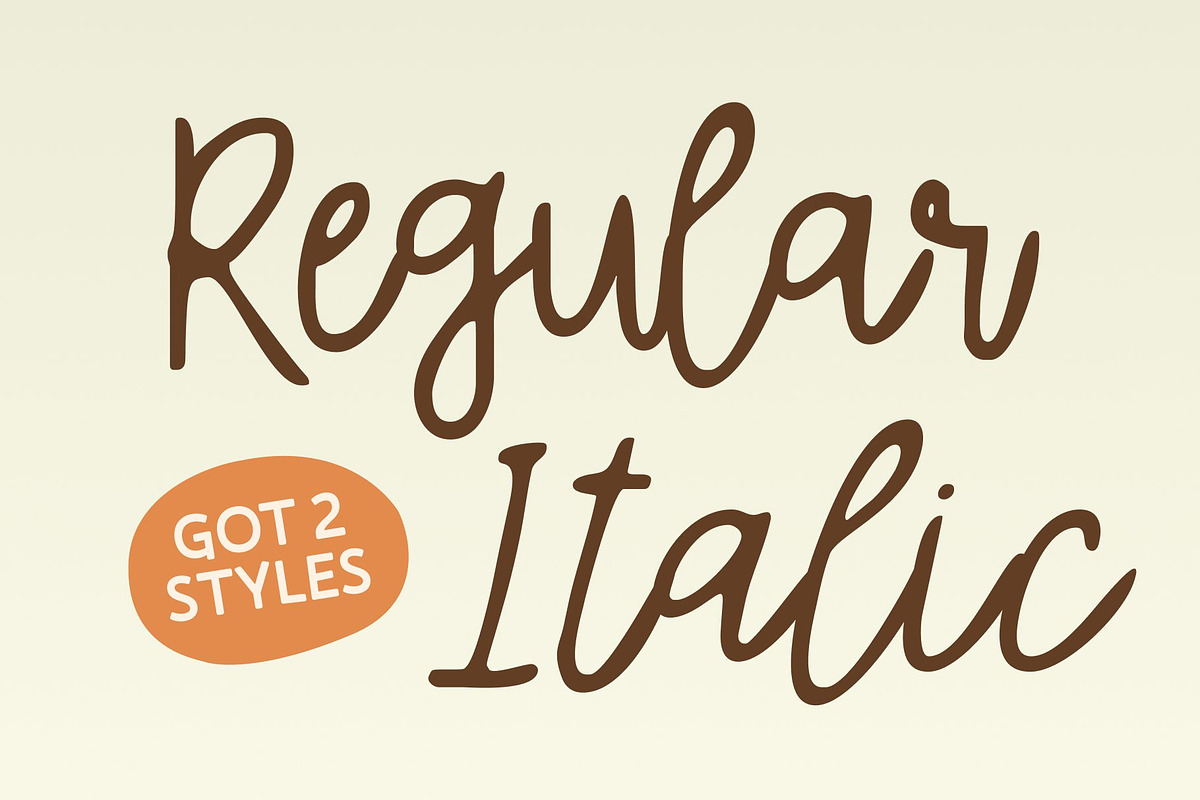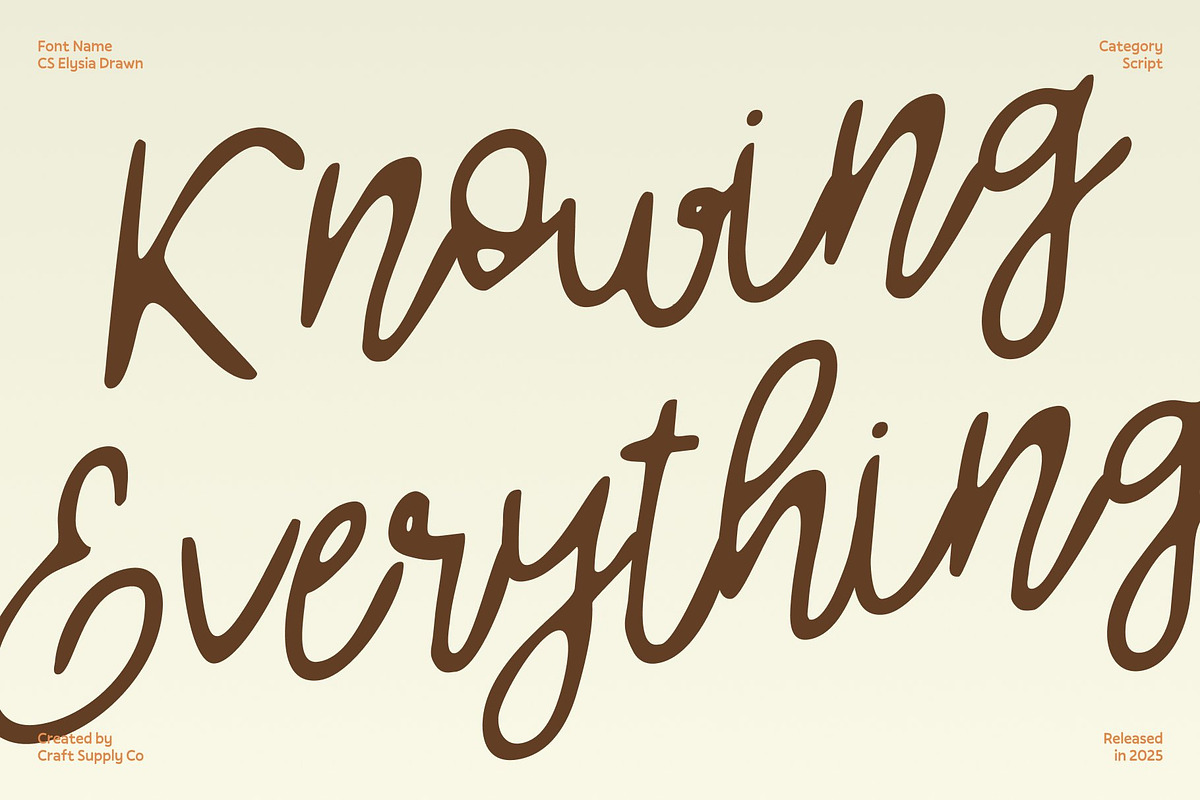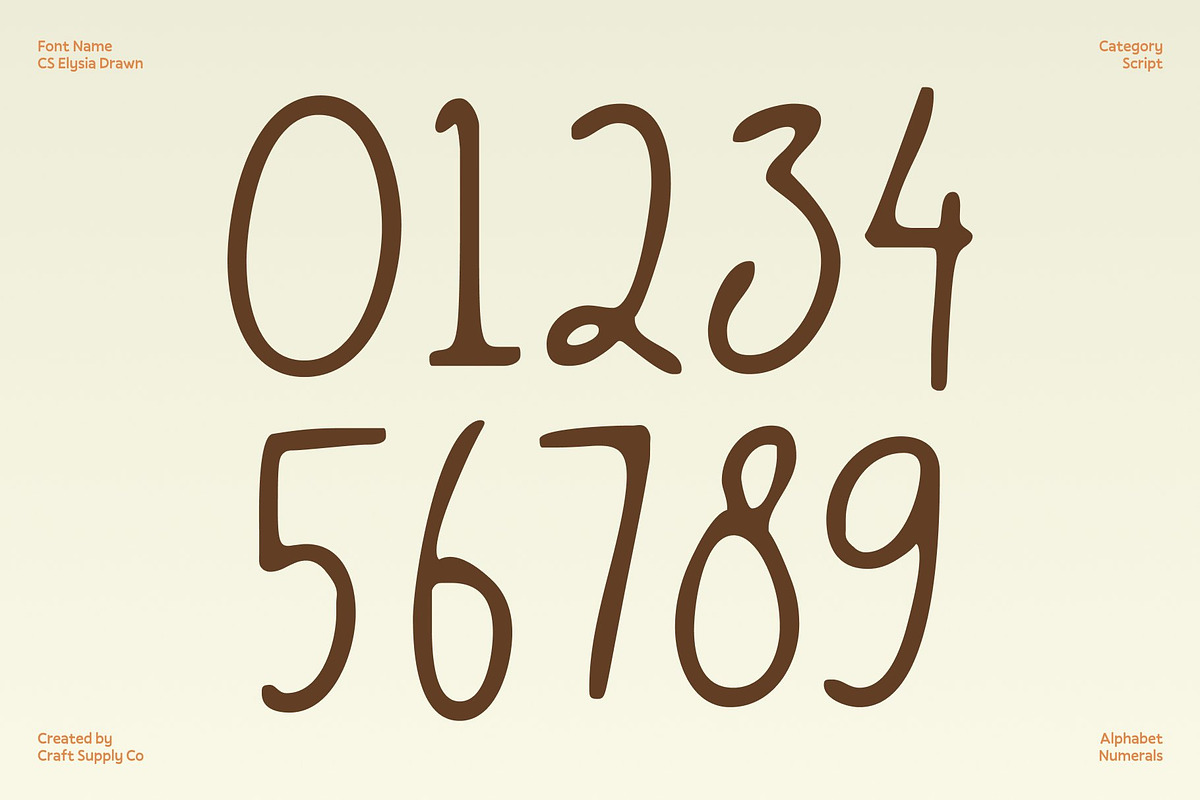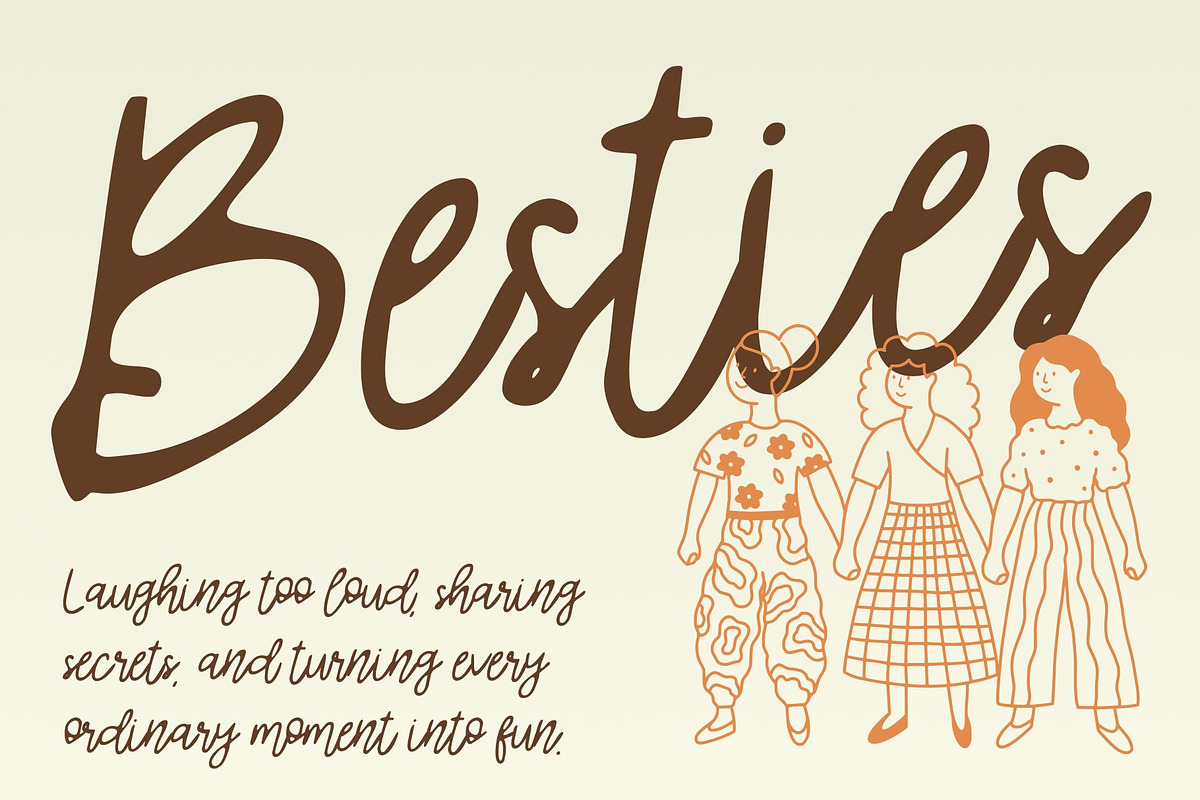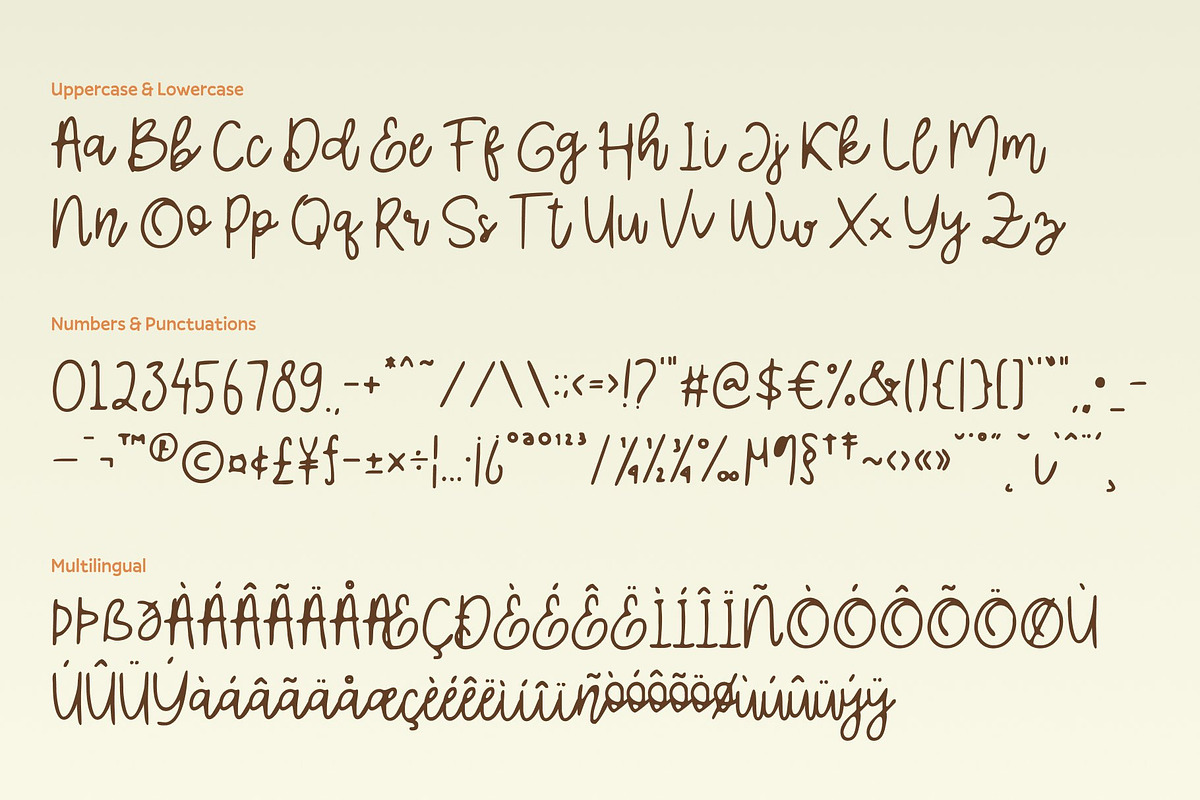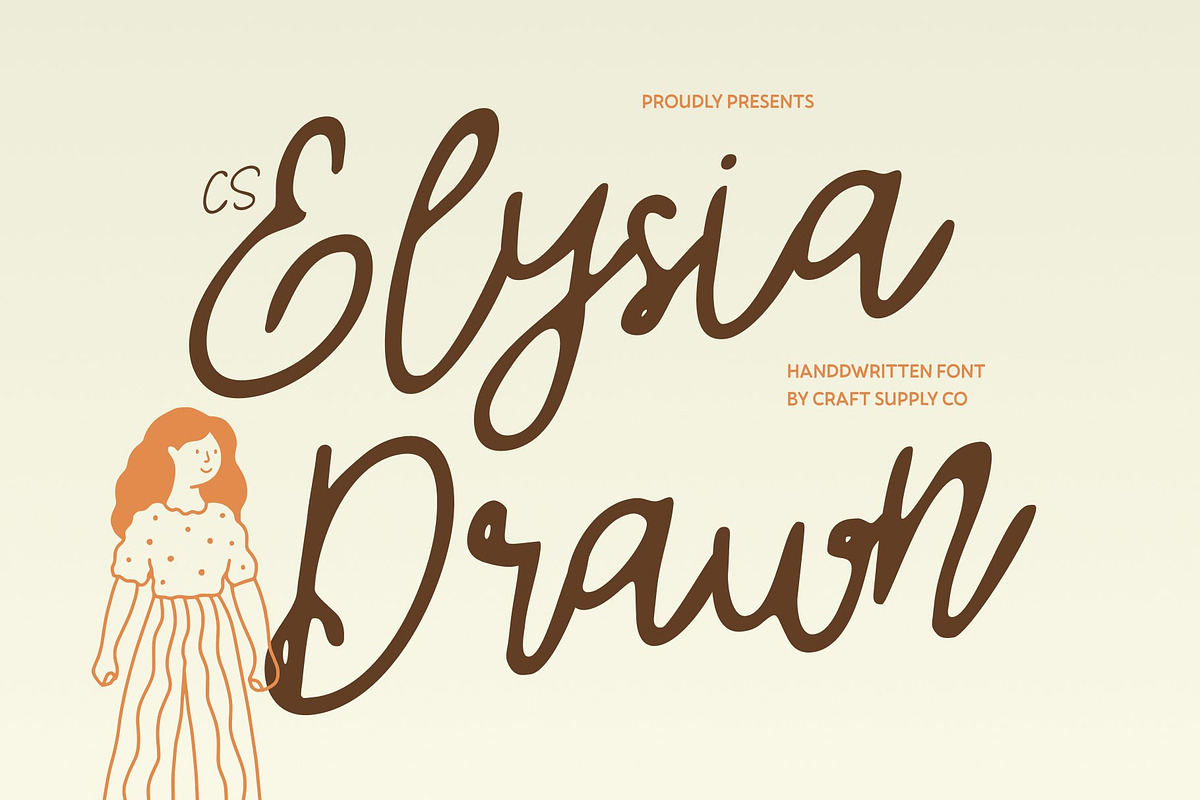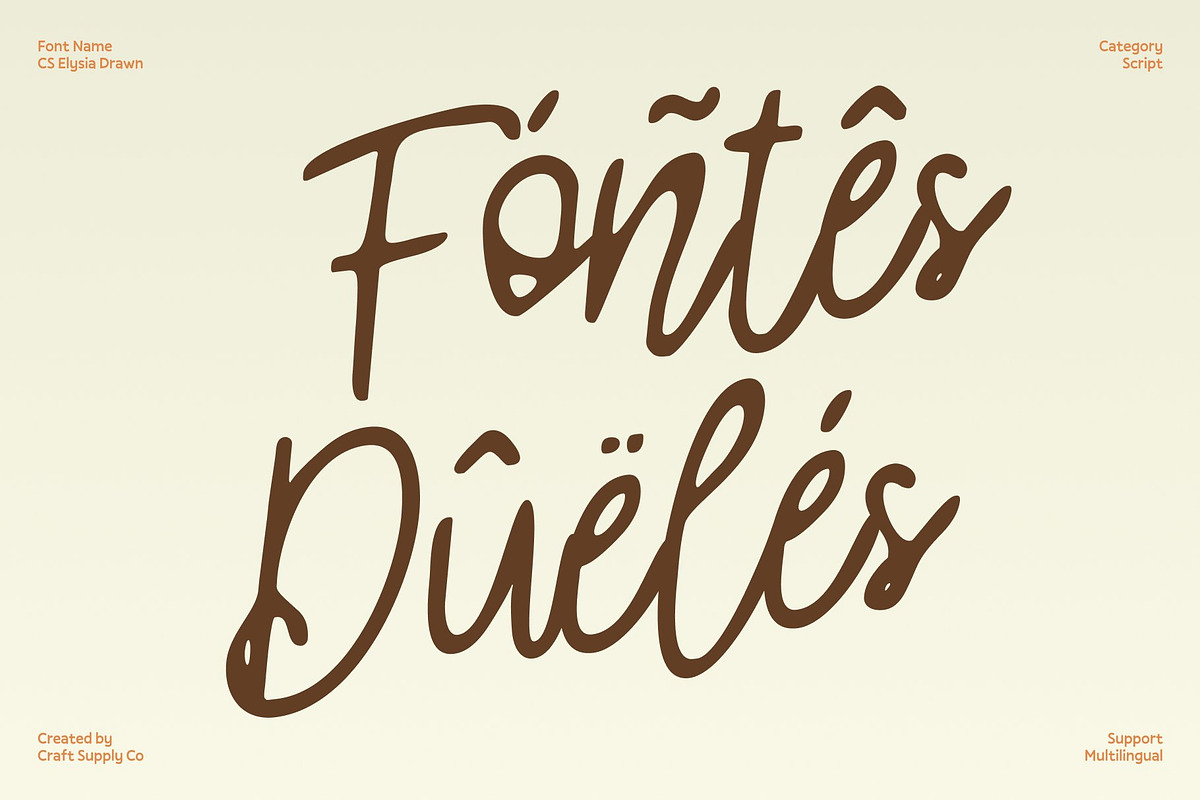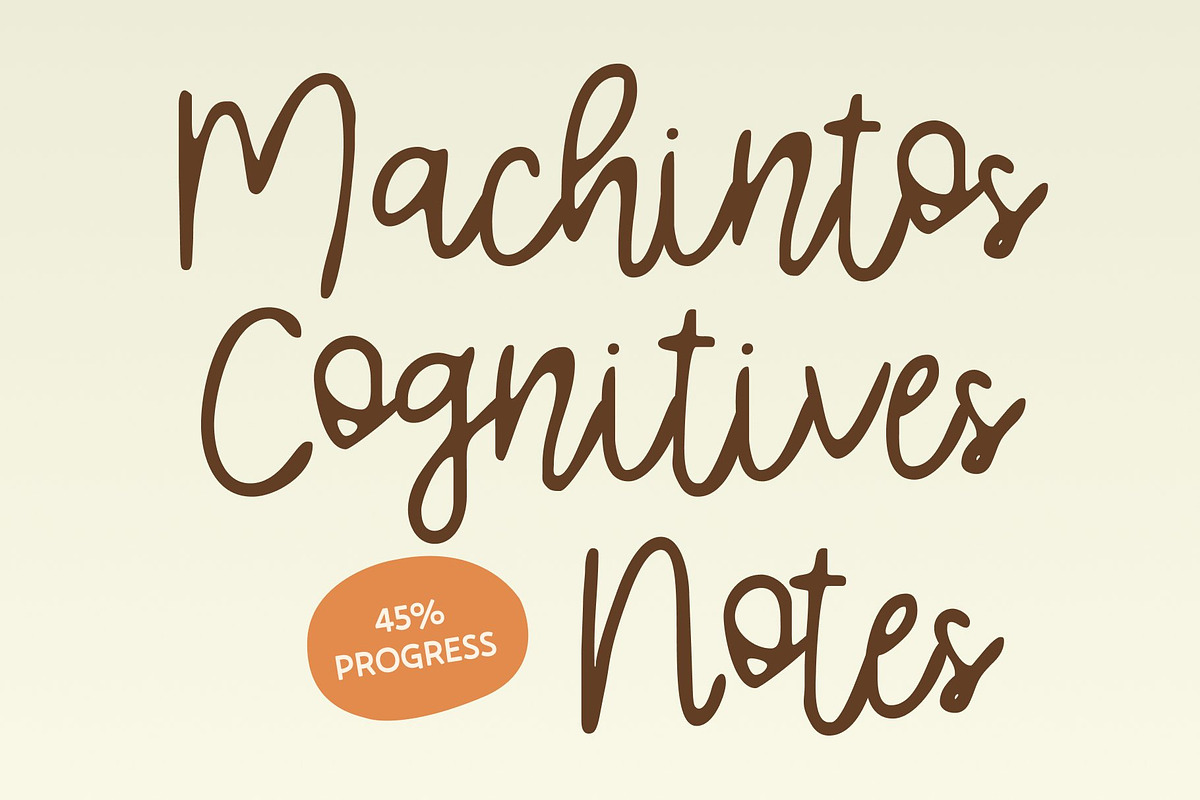
CS Elysia Drawn
CS Elysia Drawn – Elegant Script Font: Graceful Handwritten Charm
Smooth, Flowing Strokes with Natural Elegance This is a handwritten script font that combines the refined beauty of monoline curves with the warmth and authenticity of hand-drawn lettering. Each stroke carries subtle variations, giving the font a natural, unique texture that feels personal, graceful, and expressive.
Timeless Sophistication for Modern Luxury Blending classic elegance with contemporary readability, this font’s balanced rhythm and flowing connections create a polished yet approachable look. Its drawn effect adds handcrafted charm, making every word feel distinctive and full of personality.
Perfect for Romantic and Elegant Projects Ideal for wedding invitations, high-end branding, fashion, or luxury packaging, this font brings intimacy, style, and sophistication to any design. Its graceful letters elevate your message with warmth, poise, and a touch of hand-crafted artistry.
Versatile for Digital and Print Design Whether used for logos, editorial layouts, or celebratory graphics, this font’s elegant, natural character ensures your designs feel both refined and heartfelt. This font turns typography into an expressive, memorable statement.
- CS Elysia Drawn Regular
- CS Elysia Drawn Italic